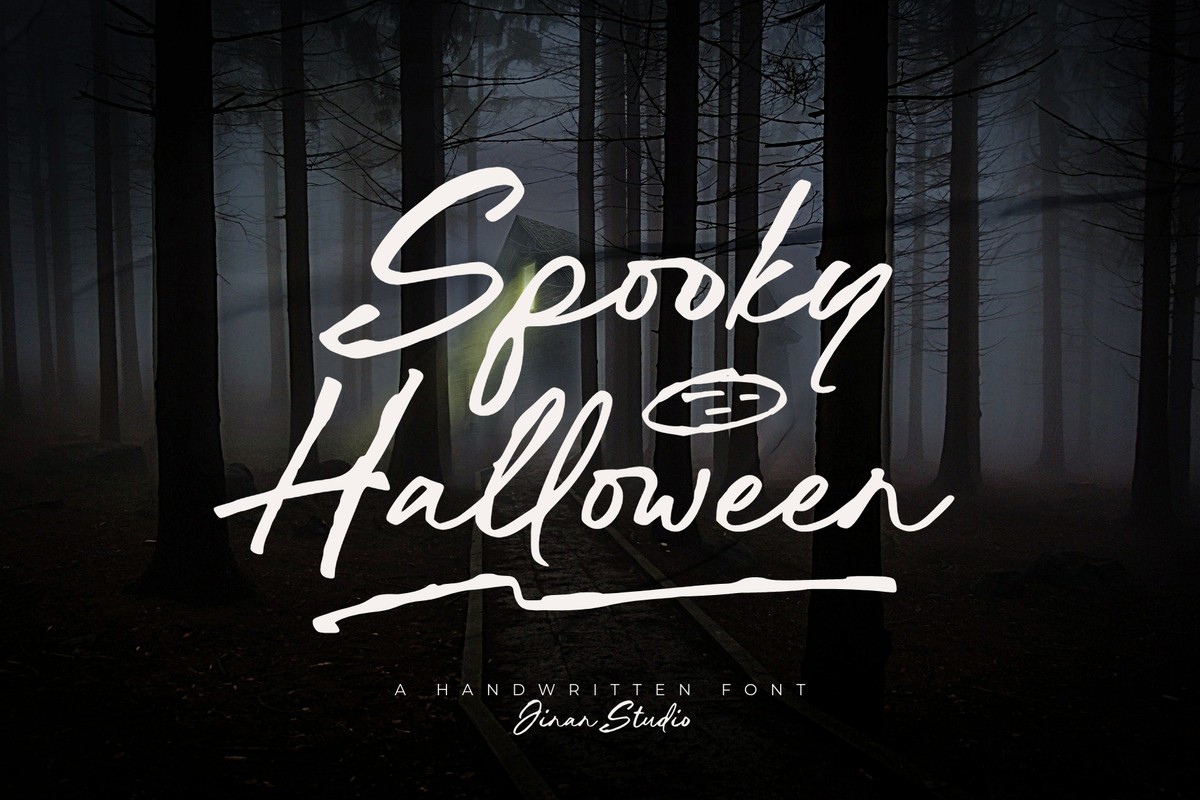
Spooky Halloween Font
This spine-tingling font is perfect for classic Halloween decorations, traditional spooky events, ghost-themed celebrations, haunted house attractions, eerie Halloween parties, supernatural seasonal marketing, spooky Halloween invitations, ghostly horror displays, classic Halloween branding, and timelessly spooky Halloween messaging materials.
Spooky Halloween Font is exciting because it embodies the quintessential essence of Halloween spookiness through its masterfully crafted letterforms that capture the perfect balance of supernatural eeriness and classic Halloween charm that has defined the holiday for generations. The font features mysteriously curved characters with spooky proportions and traditional details that evoke the timeless atmosphere of Halloween nights when ordinary shadows become mysterious shapes and familiar sounds take on supernatural significance, incorporating ghostly flourishes and eerie elements that create typography as authentically spooky as the feeling of walking past a graveyard on Halloween night. Each letter showcases the classic spookiness and enduring appeal that makes traditional Halloween celebrations so beloved, with haunting curves and supernatural accents that transform ordinary text into expressions of genuine Halloween atmosphere that capture the delicious thrill of being pleasantly frightened by the mysterious and unknown.
The Spooky Halloween Font family includes traditionally spooky variations: Regular, Bold, Light, Ghostly, and Haunting versions. The collection features special spooky elements including ghost accents, eerie flourishes, supernatural details, and mysteriously spooky ornaments. Additional components include spooky borders, haunting frames, eerie decorations, and classically supernatural ornamental designs that enhance the font's spooky Halloween appeal and create cohesive traditional Halloween themes.
Traditional Halloween celebrants and classic spooky enthusiasts will find Spooky Halloween Font Free Download to be an essential resource for creating authentically atmospheric Halloween communications that honor the time-honored traditions and classic spookiness that have made Halloween such an enduringly popular and beloved supernatural celebration. This traditionally crafted font transforms ordinary Halloween messaging into spooky expressions that resonate with audiences who appreciate the classic eeriness and timeless supernatural charm that define authentic Halloween spookiness.
The typeface includes comprehensive character support with traditional spooky styling that maintains excellent readability while conveying the classic eeriness and supernatural atmosphere of traditional Halloween celebrations. The font's authentically spooky design ensures perfectly eerie results across both classic Halloween applications and traditional spooky productions.
Perfect for traditional Halloween events, classic spooky celebrations, timeless Halloween decorations, and authentically eerie seasonal marketing, this font delivers classically spooky visual impact that communicates traditional eeriness, supernatural charm, and the timeless spookiness that makes Halloween such an enduringly beloved and mysteriously magical celebration of the supernatural.